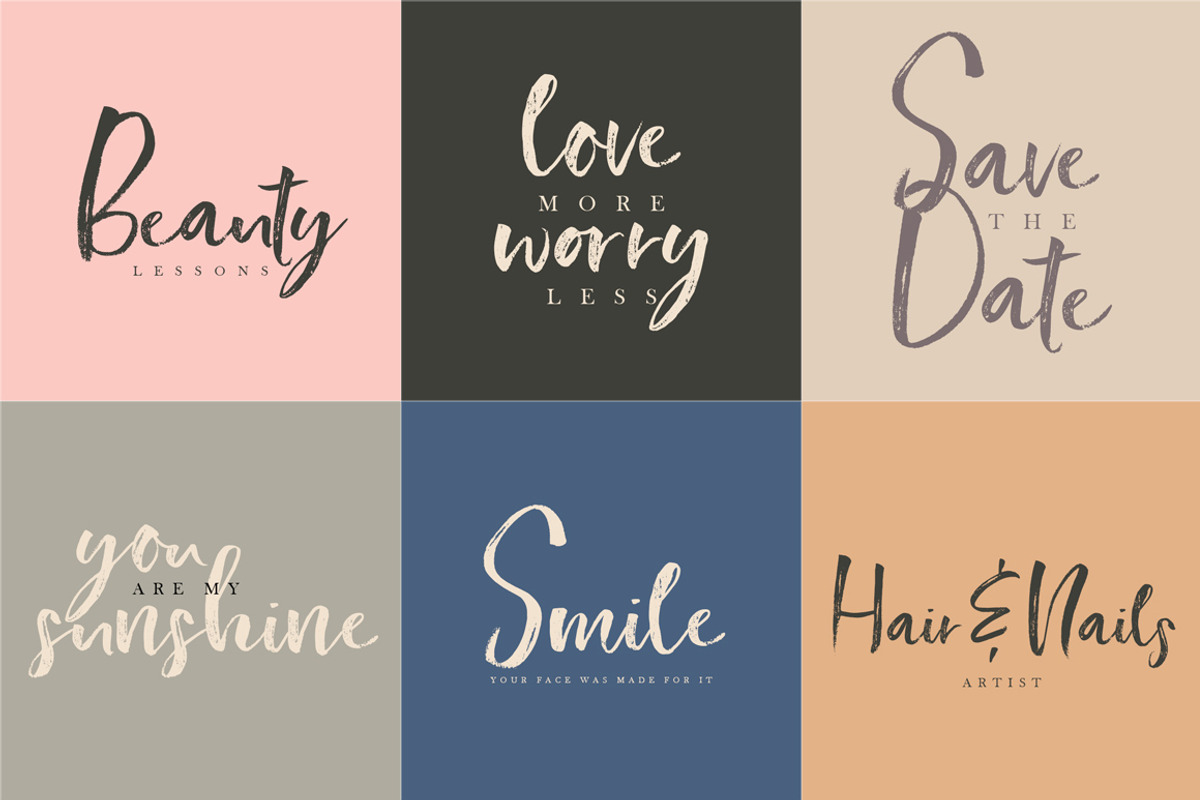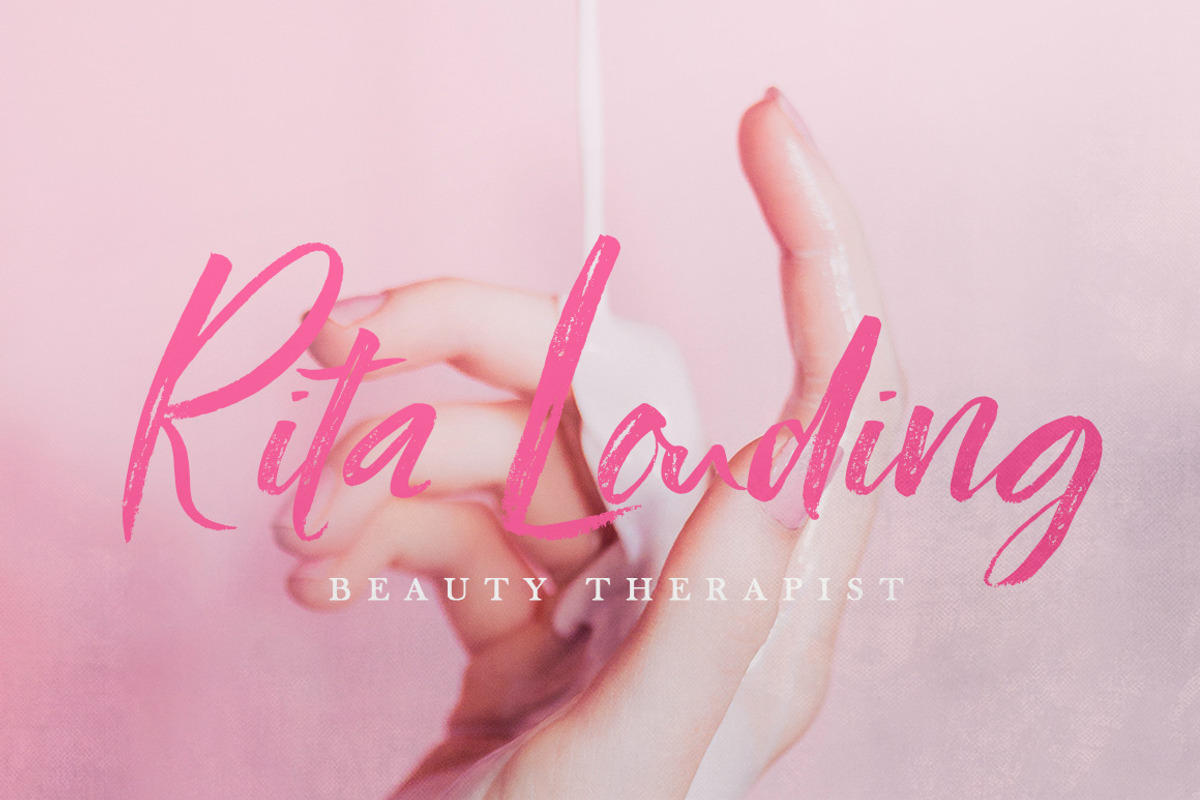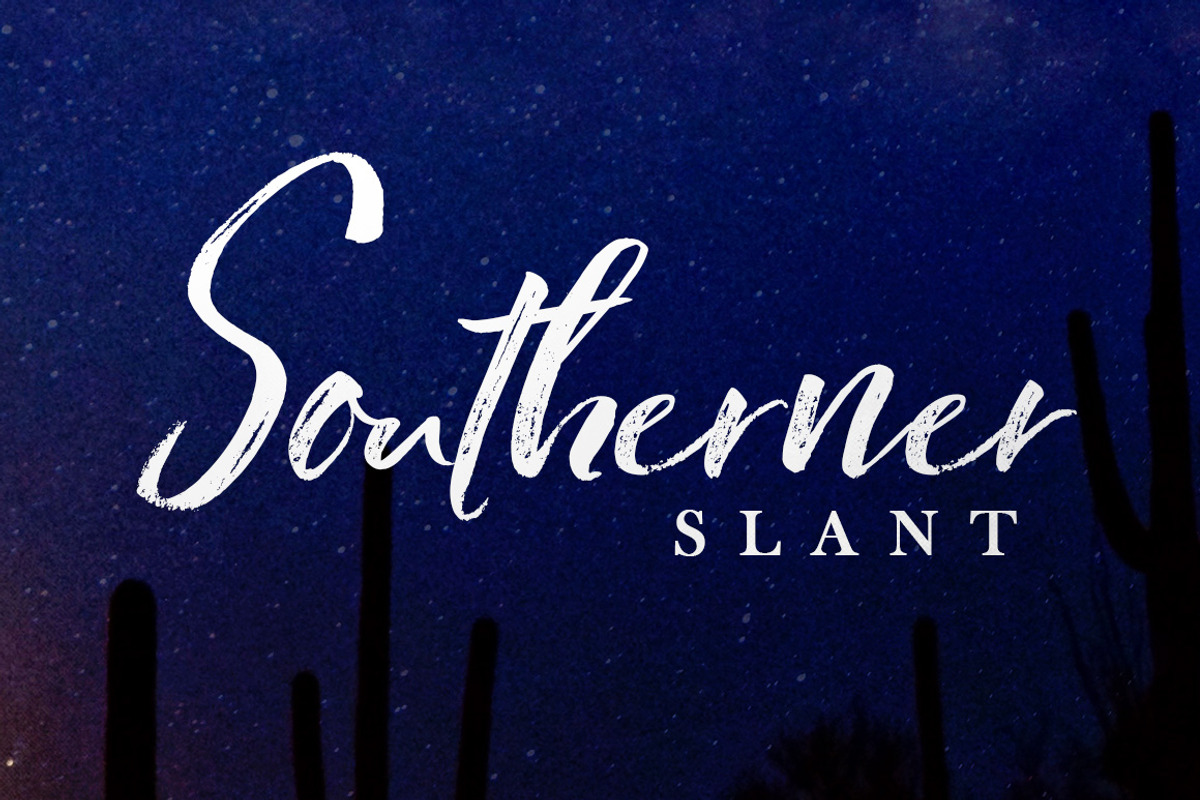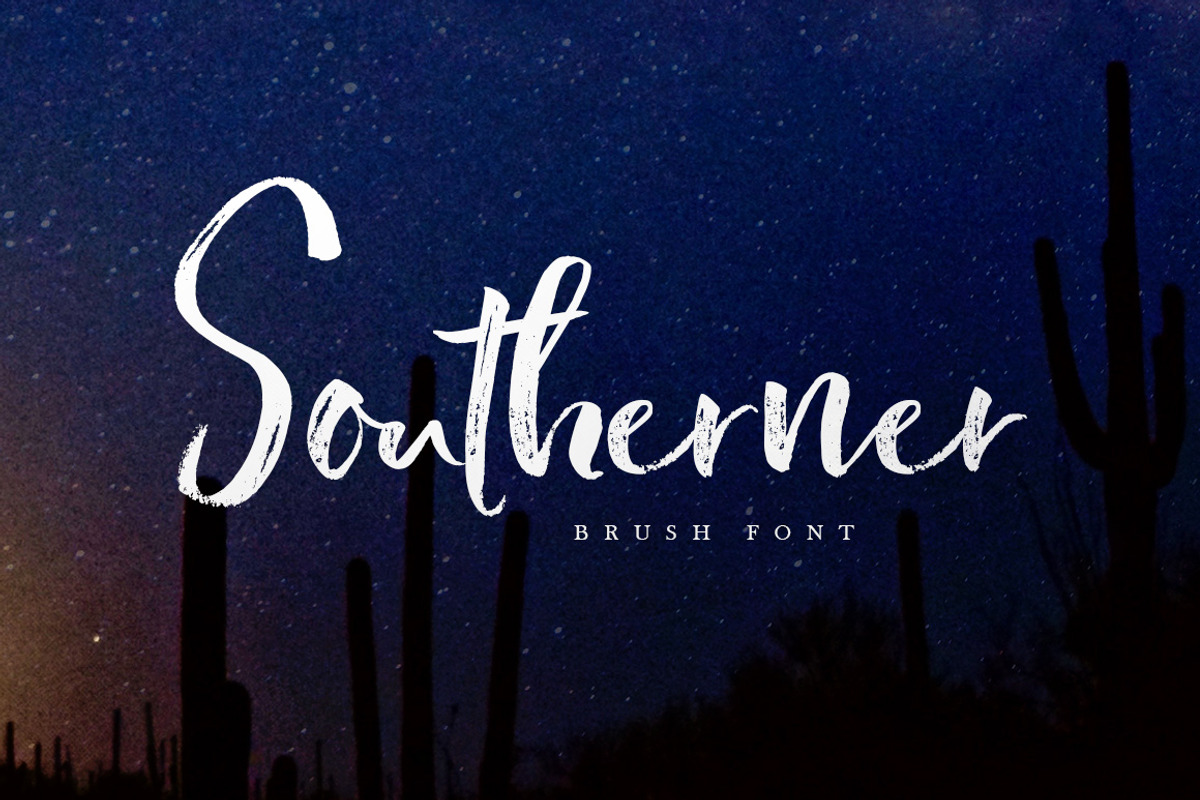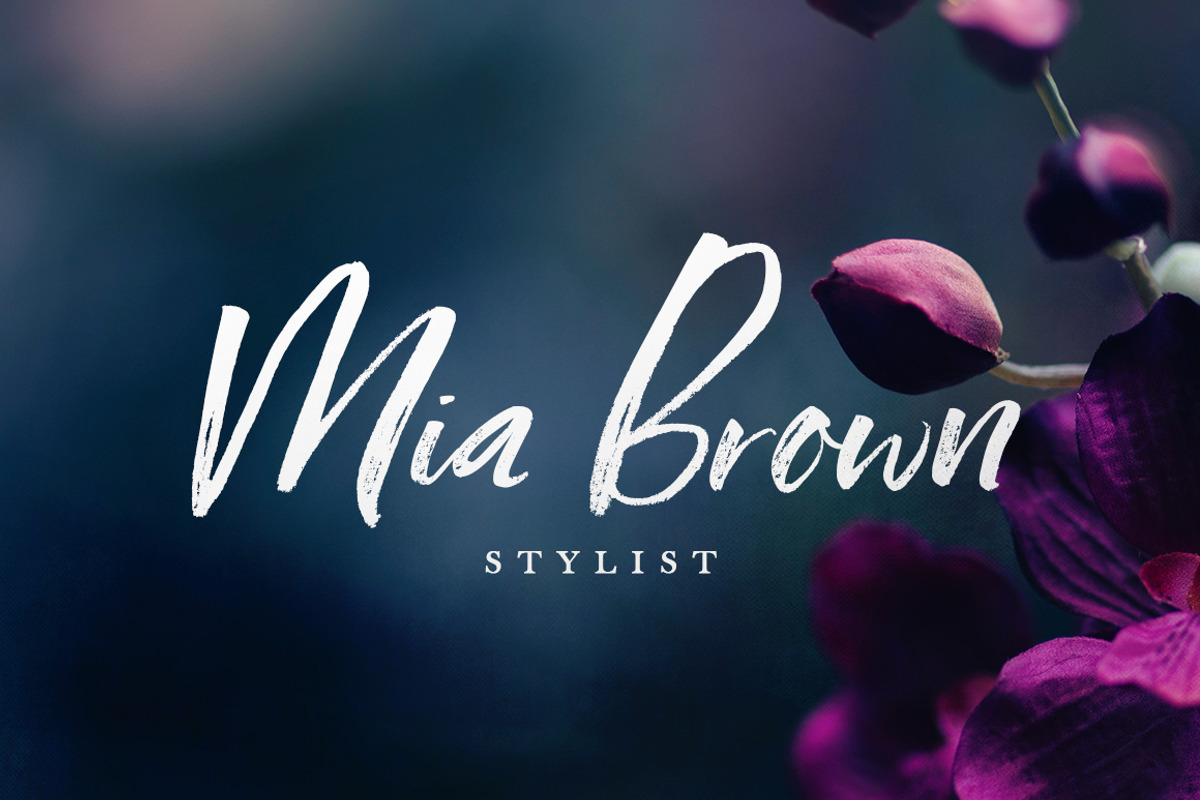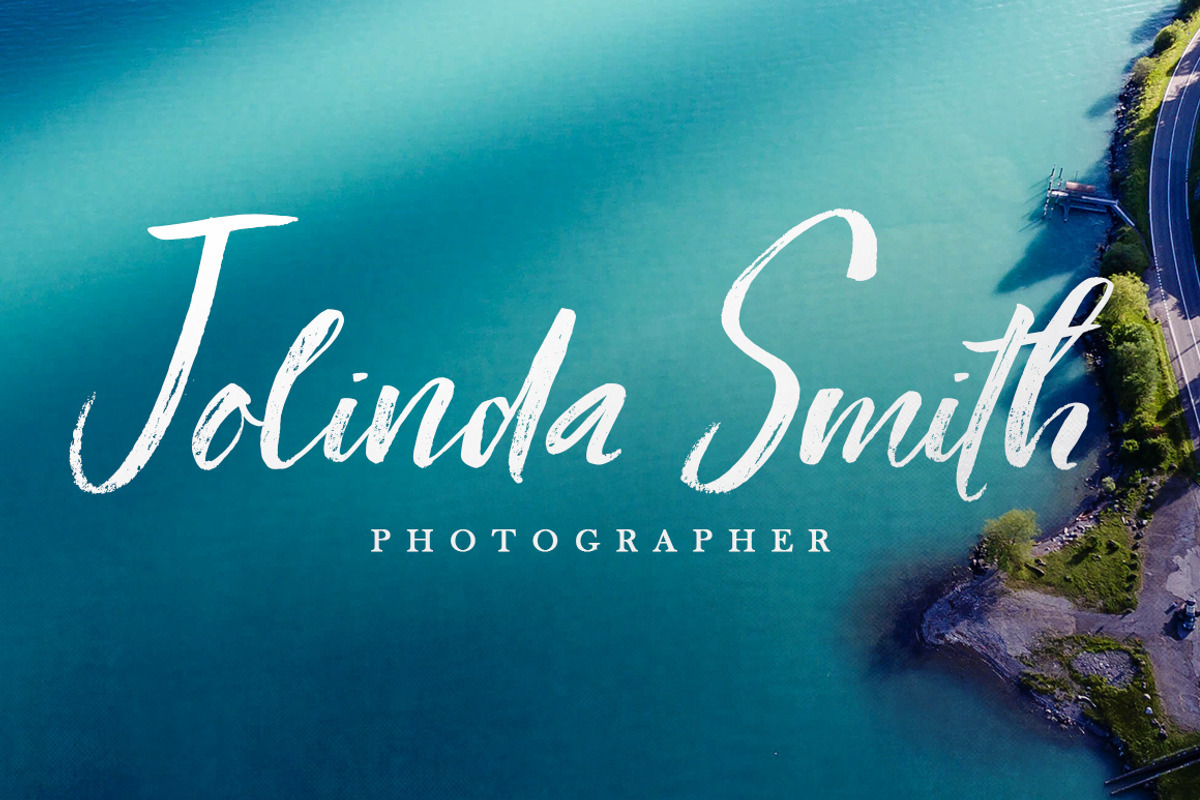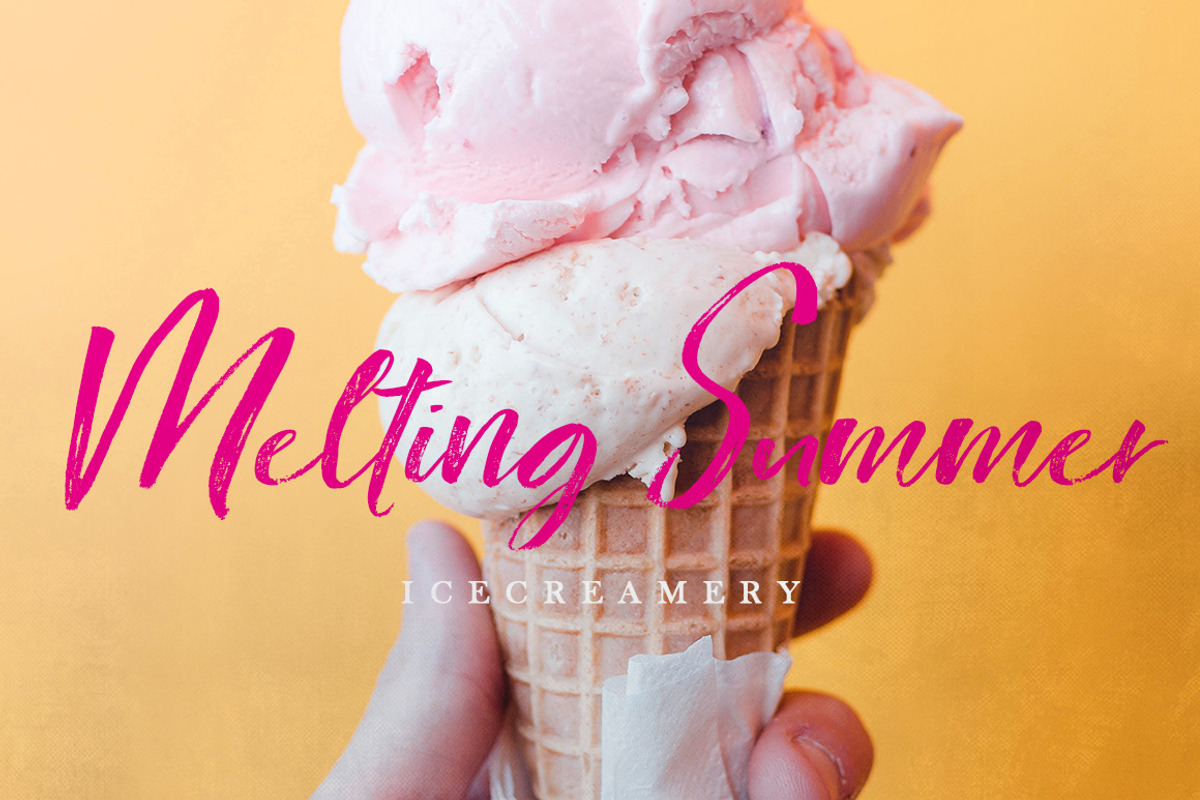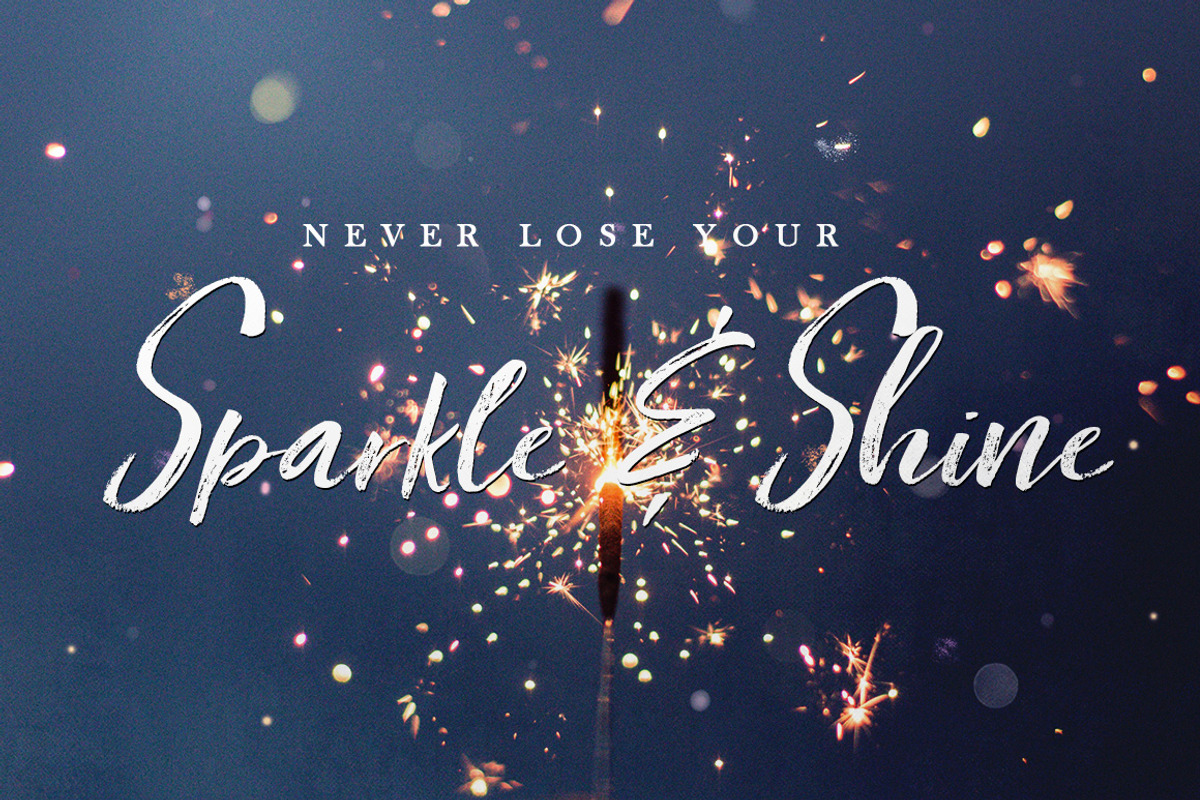
Southerner Brush Script Typeface
Introducing Southerner!A textured hand brushed script with a full set of alternates
Need to add some hand brushed character and texture to your designs? Southerner is just the script font you need!
Southerner has a full lowercase set of alternates, and they pop up automatically at the end of each word when using OpenType (switch on the Contextual Alternates button) You can also access the alternates with your Character Panel.
Southerner also comes in Slant version, and looks amazing used as an All Caps font!
- Also included is 5 ligatures (double letters) to give this beautiful font a hand brushed look.